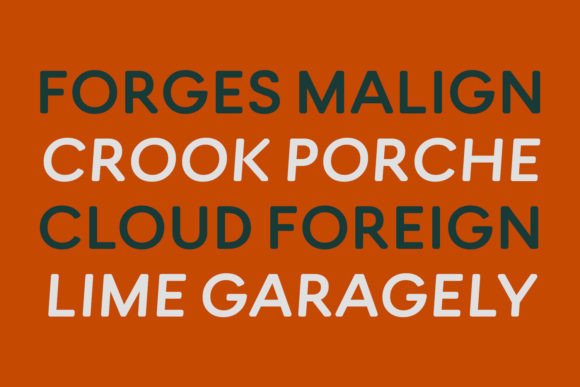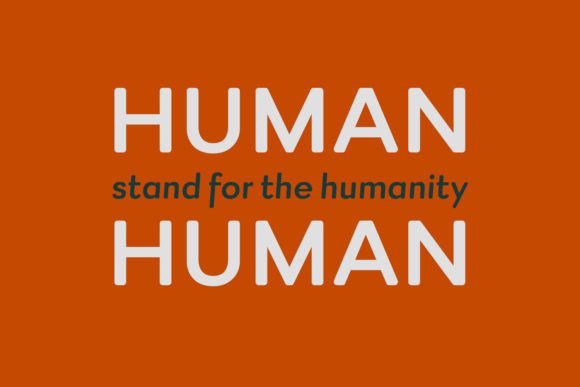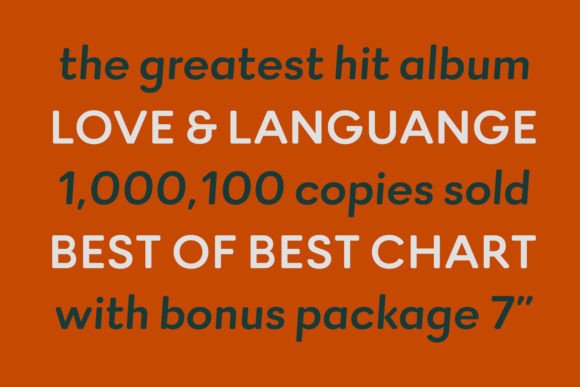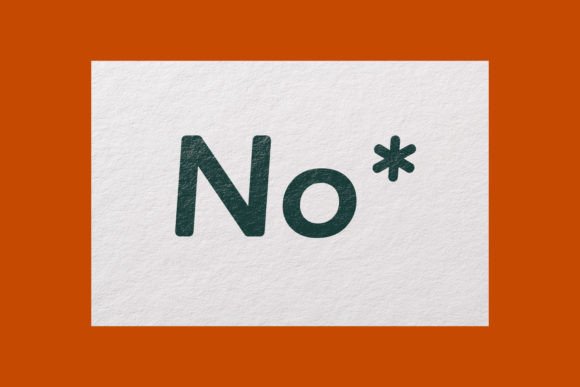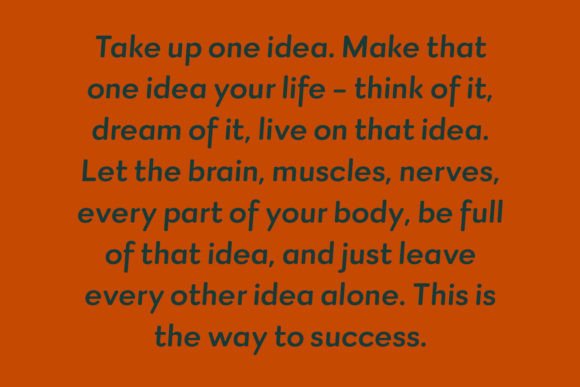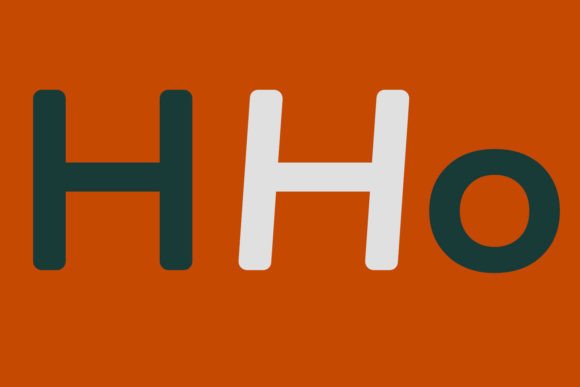
Introduction to Rinkart Font
Have you ever been working on a creative project, pouring your heart and soul into it, only to be stumped by the perfect font? The one that elevates your design from good to great? For designers, finding that elusive font can be a game-changer.
Enter the Rinkart Font, a modern and neat sans serif font that’s taken the design world by storm. With its incredibly versatile design, this font is suitable for a wide spectrum of applications, from logo design to digital displays. Whether you’re working on a high-quality design project or just need a reliable design resource, the Rinkart Font is an excellent choice.
Key Features of Rinkart Font
- It offers a transparent background, making it suitable for use on any design or digital project.
- Rinkart Font comes in a single weight, making it simple to incorporate into your design without worrying about font pairing.
- With a resolution of 72 dpi, this font is suitable for digital use, including web design, social media graphics, and more.
- Its modern and elegant design makes it an excellent choice for various creative projects, from logos to brochures.
Honest Review: Rinkart Font
- ✨ High-quality design: The font features a unique and elegant design that’s perfect for titles and headings.
- ✨ Transparent background: This allows for seamless integration with any background image or color, giving you more design freedom.
- ✨ Versatile: The Rinkart Font is suitable for a wide range of creative projects, from wedding invitations to business brochures.
However, I did encounter a few limitations ⚠️:
- ⚠️ Limited font sizes: The font is best used in larger font sizes to showcase its elegant design.
- ⚠️ May not be suitable for text-heavy content: Due to its unique design, the font can be overwhelming when used extensively in body text.
Overall, I’m impressed with the Rinkart Font. Its high-quality design and transparent background make it a valuable design resource for any creative project. While it may have some limitations, it’s definitely worth considering for your next design project.
Transparent Background and Customization
The Rinkart Font comes with a transparent background, making it ideal for use in design projects that require a clean and modern look. You can customize the font to fit your design needs by adjusting the size, color, and style.
Tips for Getting the Most Out of Rinkart Font
To get the most out of the Rinkart Font, use it in combination with other design elements, such as images and graphics. Experiment with different font sizes and colors to create a visually appealing design. Consider using the font in a creative project that showcases its unique characteristics.
The Rinkart Font is commonly used in design projects that require a modern and sophisticated look. It is ideal for use in logos, business cards, brochures, and other marketing materials. Its high-quality design and transparent background make it a popular choice among designers and creatives.
Alternatives to Rinkart Font
Montserrat Font is a popular sans-serif font known for its clean lines and high-quality design. It’s ideal for creative projects that require a modern and sophisticated look, such as logos, brochures, and business cards. Montserrat Font is available for free download and offers a transparent background, making it perfect for overlaying on images or videos. Compared to Rinkart Font, Montserrat Font has a more urban feel and is better suited for digital projects.
Lato Font is a elegant sans-serif font that’s perfect for creative projects that require a touch of sophistication. It’s ideal for use in logos, headings, and body text, and is available for free download with a transparent background. Lato Font is a great alternative to Rinkart Font, as it offers a similar feel but with a more refined and polished design.